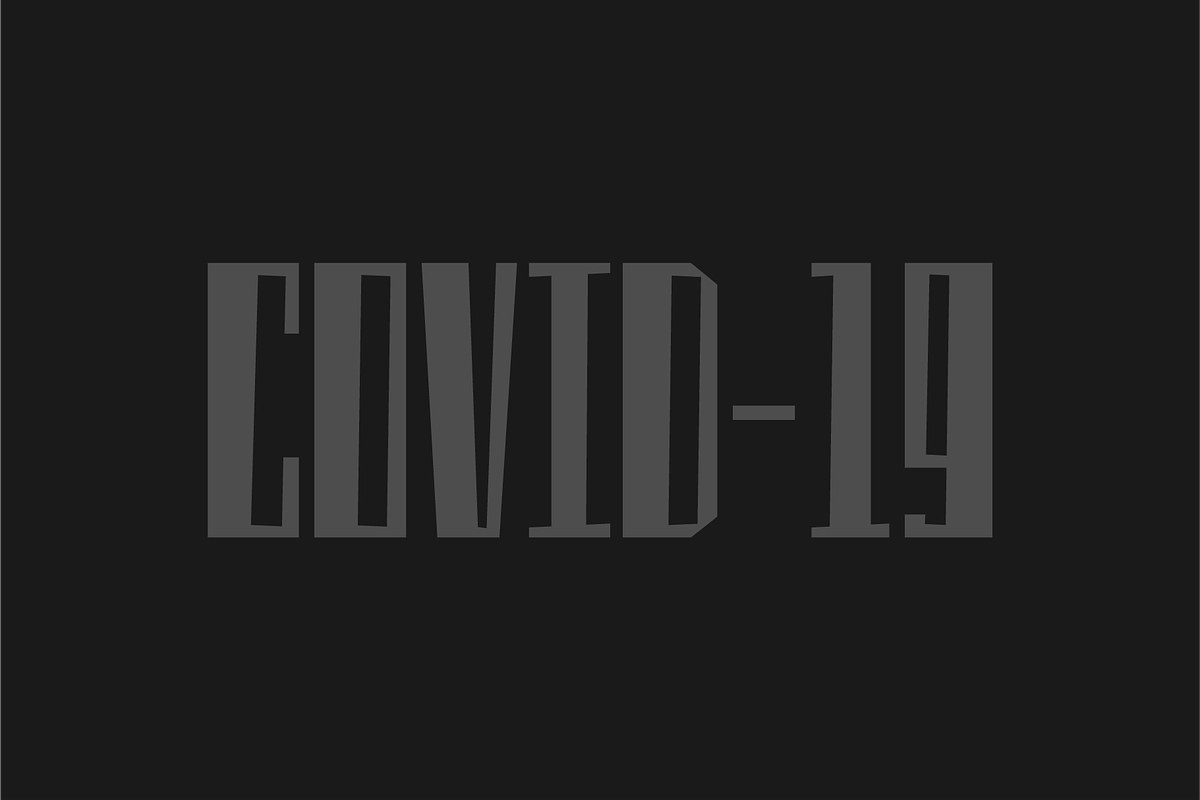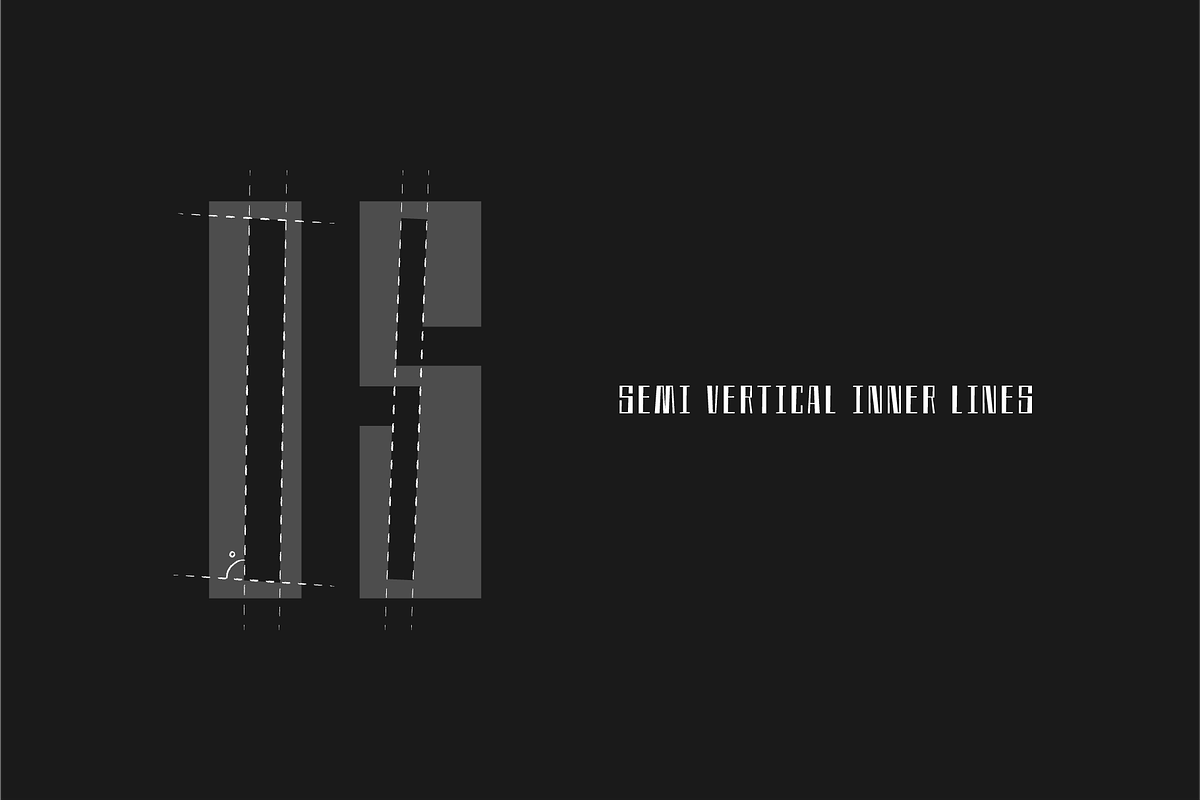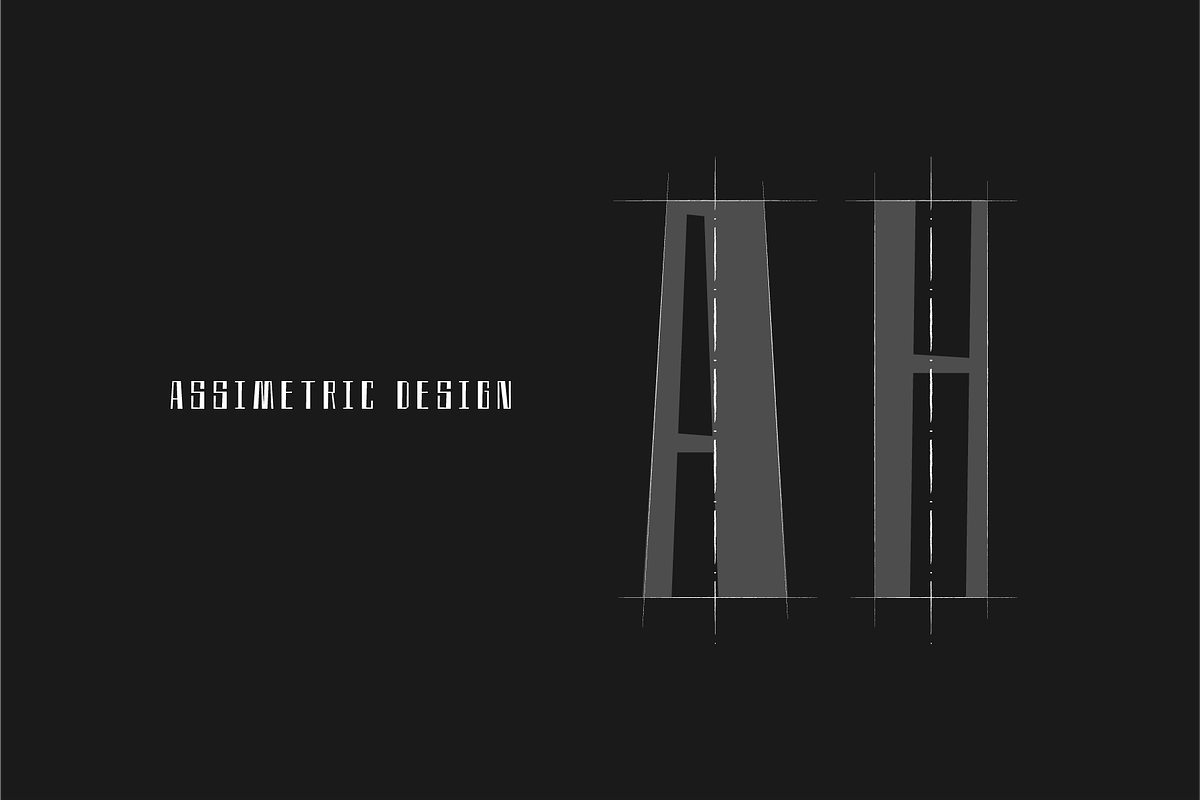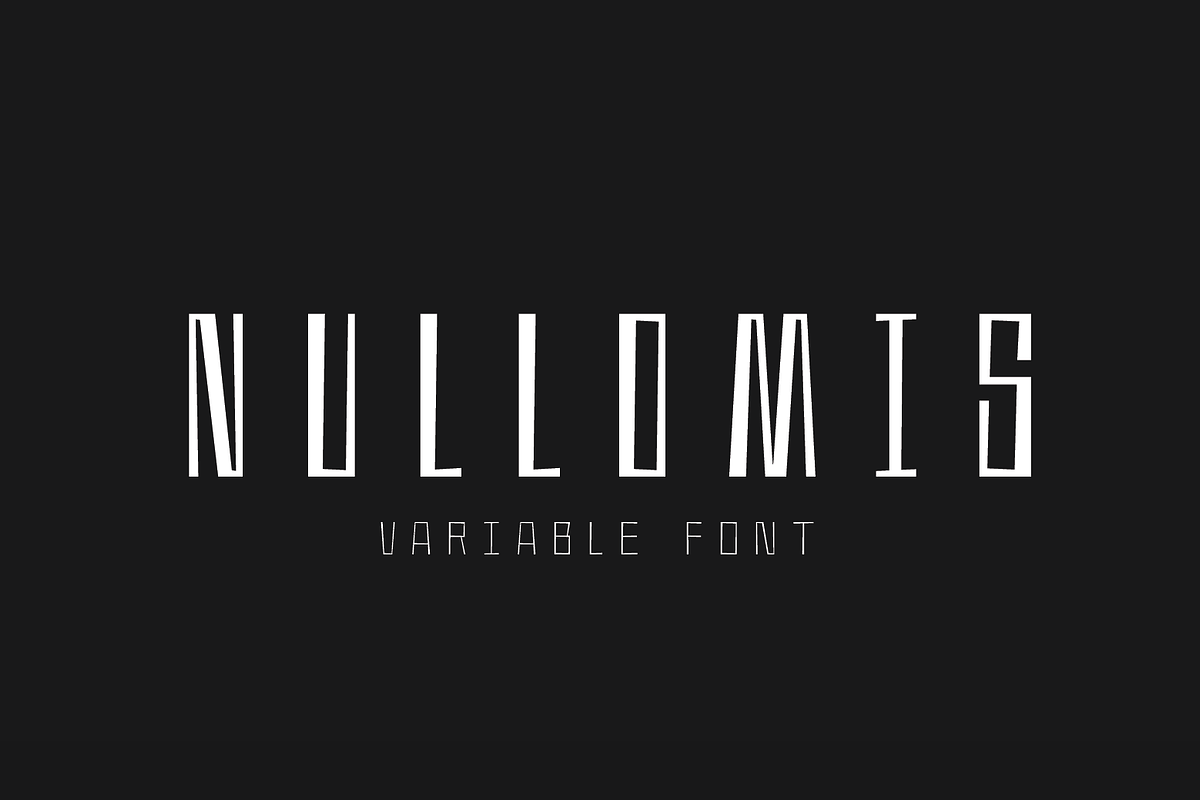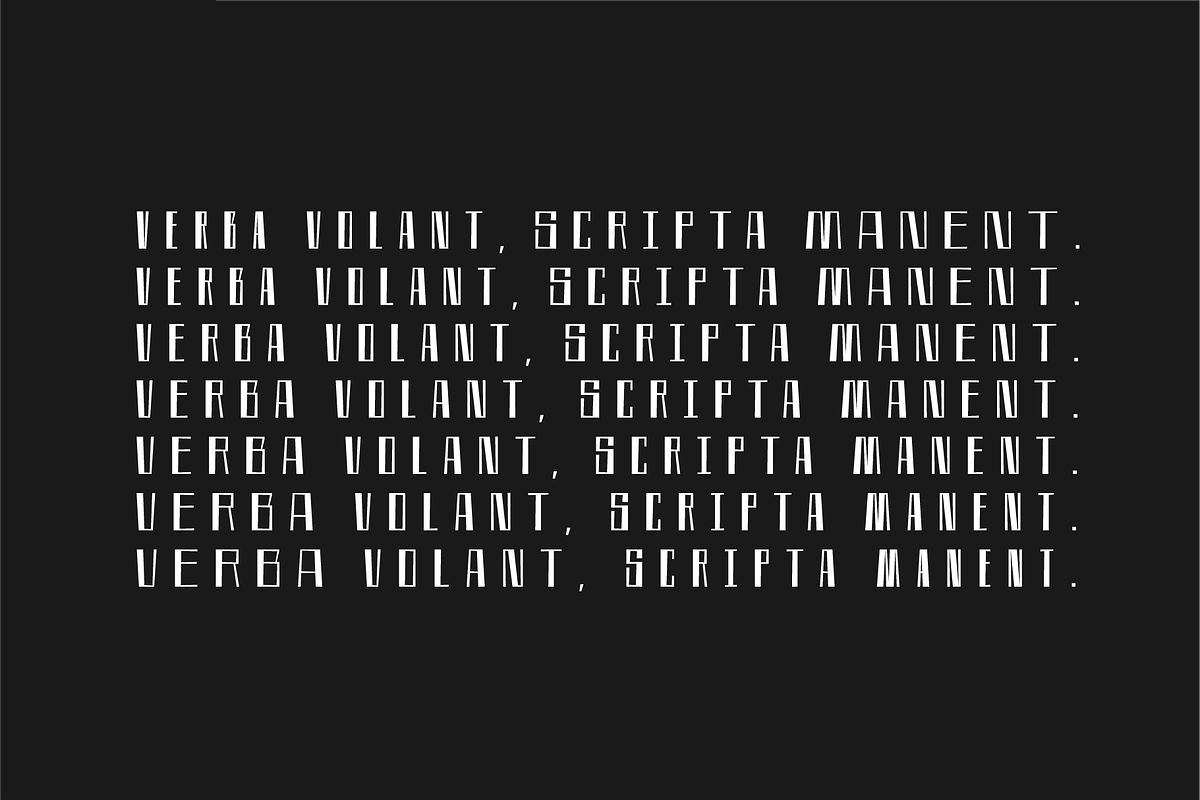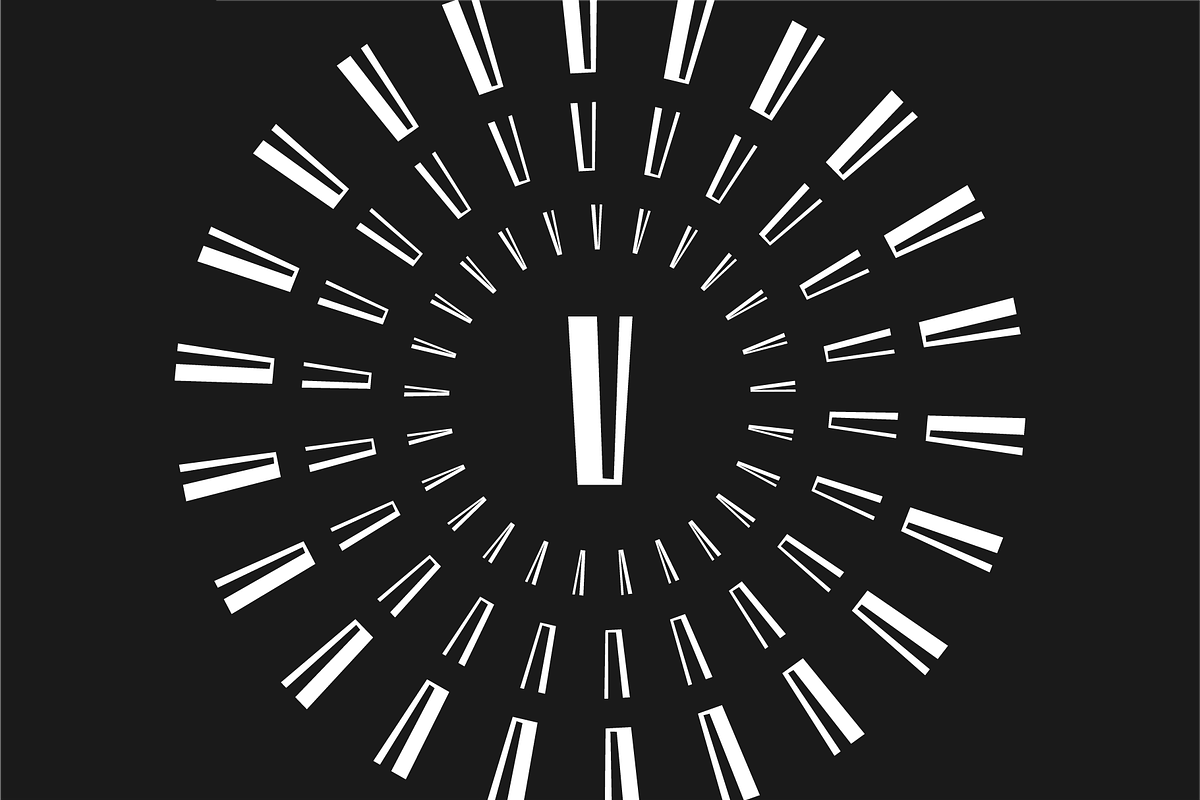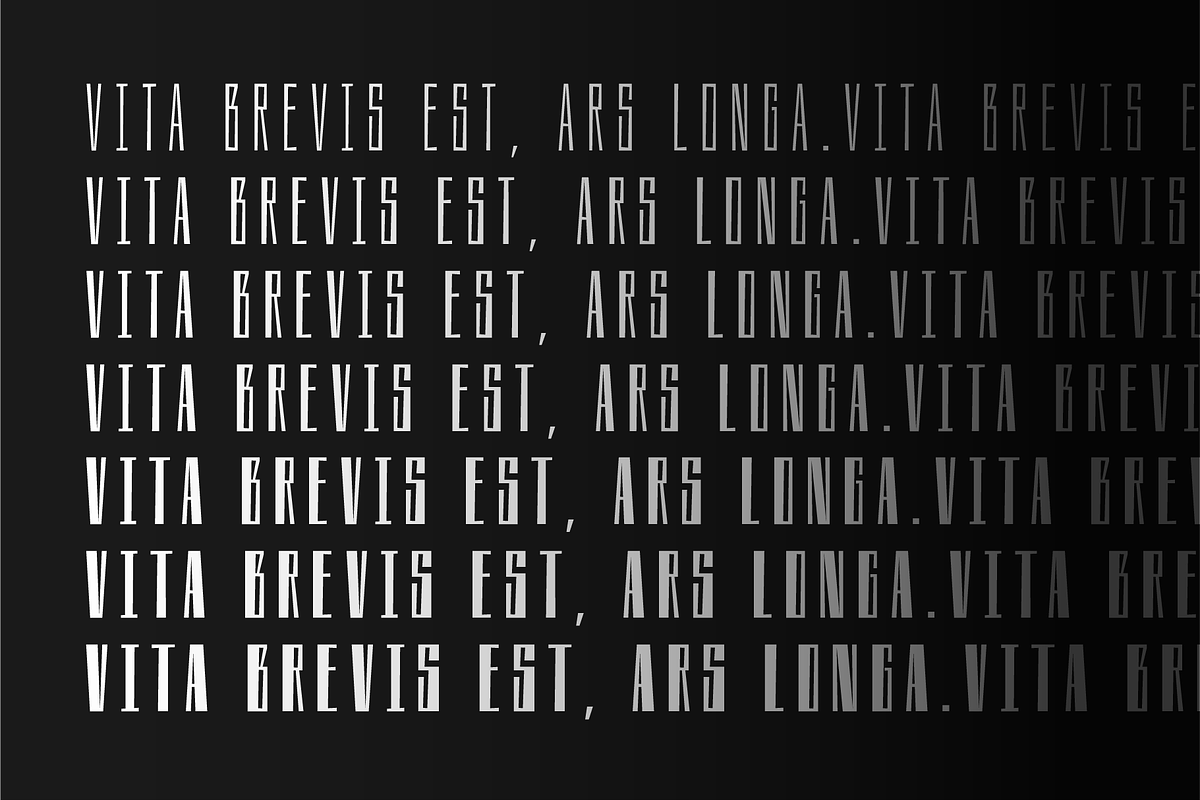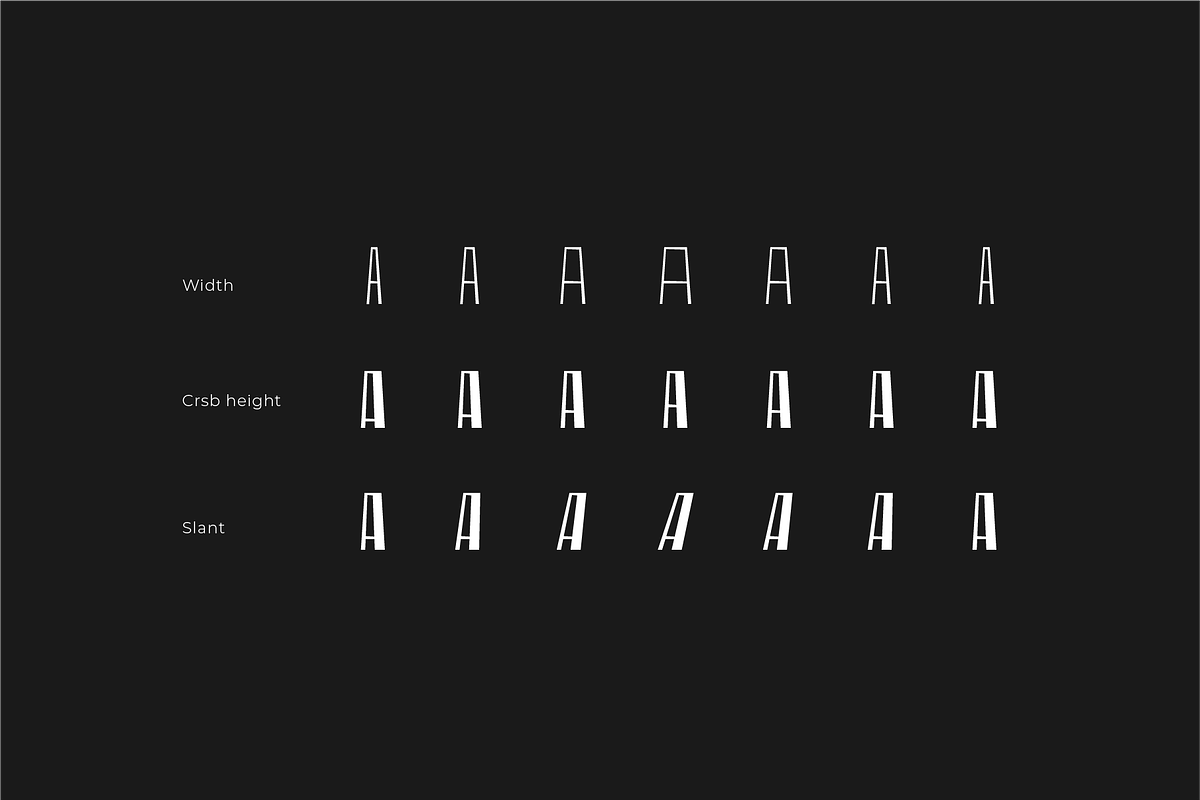
Nullomis — Variable font
Nullomis is a modern display font inspired by Soviet Period, anti-utopia and Ancient Rome (I don't know why).
It was originally planned to create an ultracondensed headliner, but now it’s a flexible font set with 49 styles or just one Variable Font with all capabilities.
Best using for posters, headlines and tags.
Extended latin glyph set